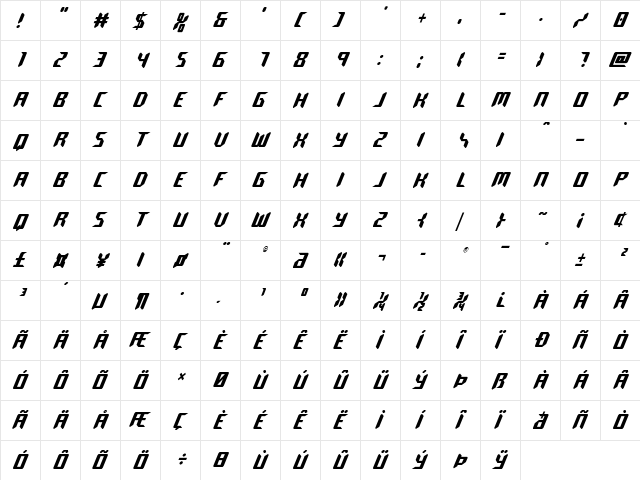
Robo-Clone Condensed Condensed
Design Context for Robo-Clone Condensed Typeface
Robo-Clone Condensed is a composed and adaptable typeface that performs quietly and consistently across a wide range of design contexts. The condensed width makes it efficient for tight spaces without sacrificing legibility.